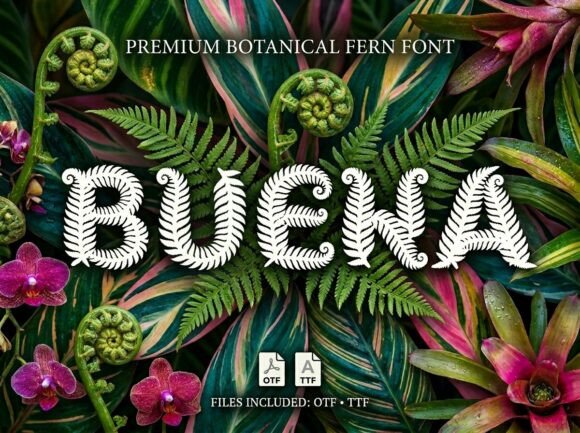
Unfurl Your Creative Vision with Buena Font
Buena is a breathtaking display font that embodies a “lush-and-layered” soul. Its intricate, hand-illustrated letterforms are uniquely characterized by rhythmic fern fronds and spiraling fiddlehead terminals, bridging the gap between Victorian botanical studies and modern luxury branding. With its dense structural weight and ornamental personality, Buena is the premier choice for independent wellness boutique identities, boutique tropical resort logos, premium organic product packaging, and high-impact “botanical-and-bespoke” social media headers.
- ✨ Intricate, hand-illustrated letterforms that add a touch of elegance and sophistication
- ✅ Unique blend of Victorian and modern elements, making it perfect for luxury branding
- ✅ Dense structural weight that commands attention
- ✅ Extensive OpenType features, including glyphs and stylistic alternates
While Buena is an exceptional font, there are a few things to keep in mind: ⚠️
- ⚠️ May not be suitable for body text due to its ornate nature
- ⚠️ Some characters may require manual kerning for optimal results
- 🤔 Limited use in digital applications due to its intricate design
Buena’s creator was inspired by the intricate illustrations of Victorian botanical studies and the luxury branding of modern high-end companies. The result is a font that embodies the perfect blend of elegance, sophistication, and playfulness. Imagine a world where art and nature come together in perfect harmony – that’s the world of Buena.
| What is Buena Font best suited for? | Buena is perfect for luxury branding, independent wellness boutique identities, boutique tropical resort logos, premium organic product packaging, and high-impact social media headers. |
| Can I use Buena for body text? | While Buena is an exceptional font, it’s not recommended for body text due to its ornate nature. It’s best suited for display purposes. |
| Is Buena available in different weights or styles? | Buena is available in a single weight, but its extensive OpenType features, including glyphs and stylistic alternates, provide a range of creative possibilities. |